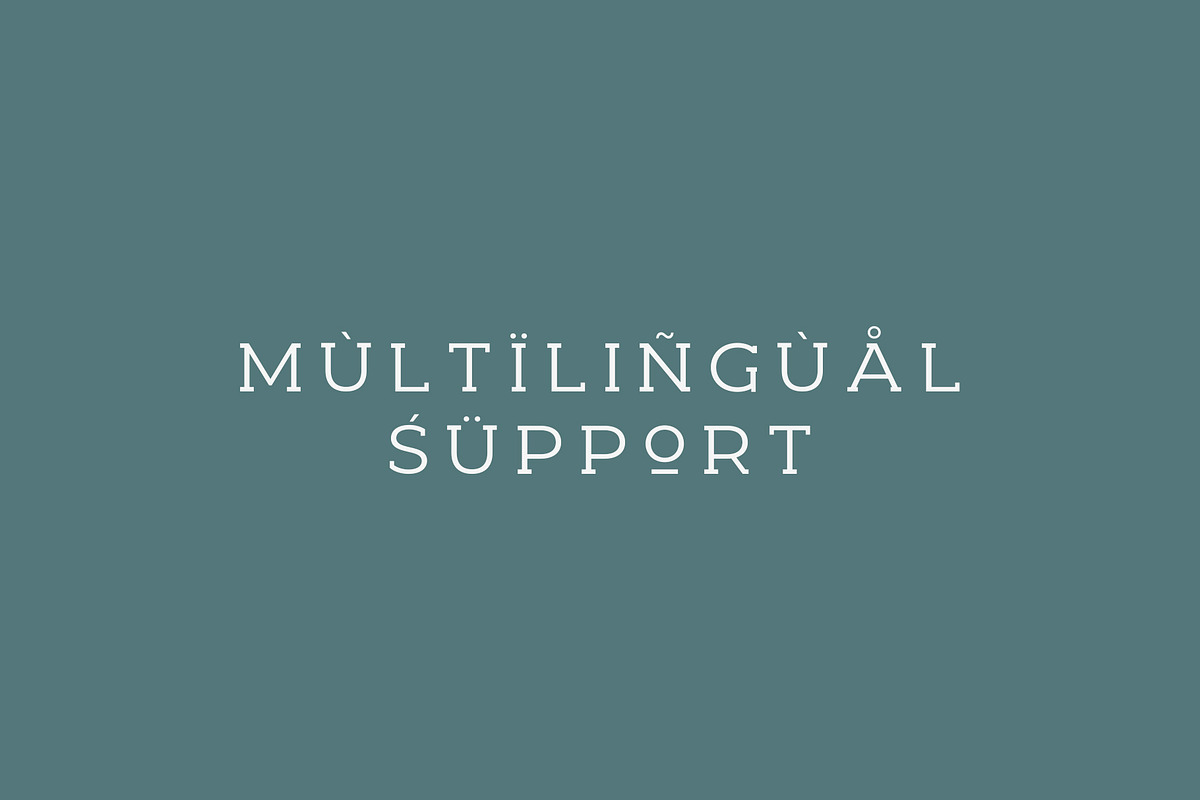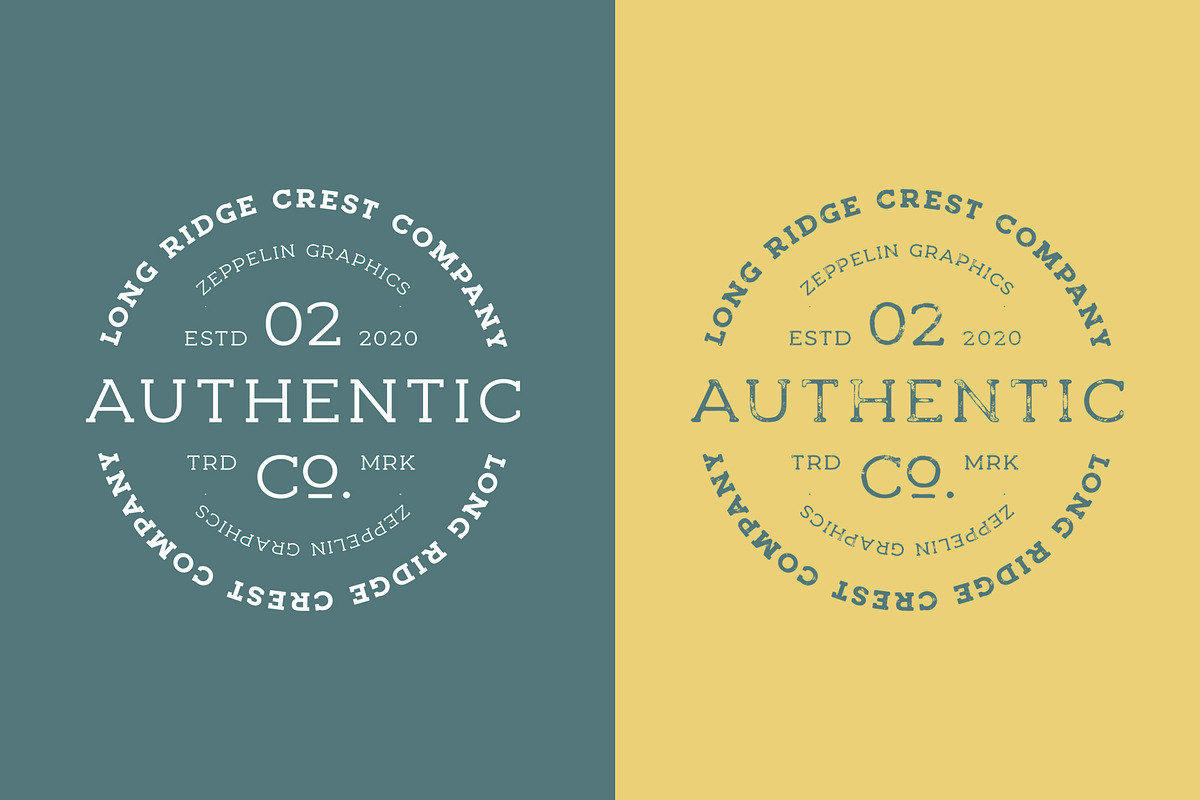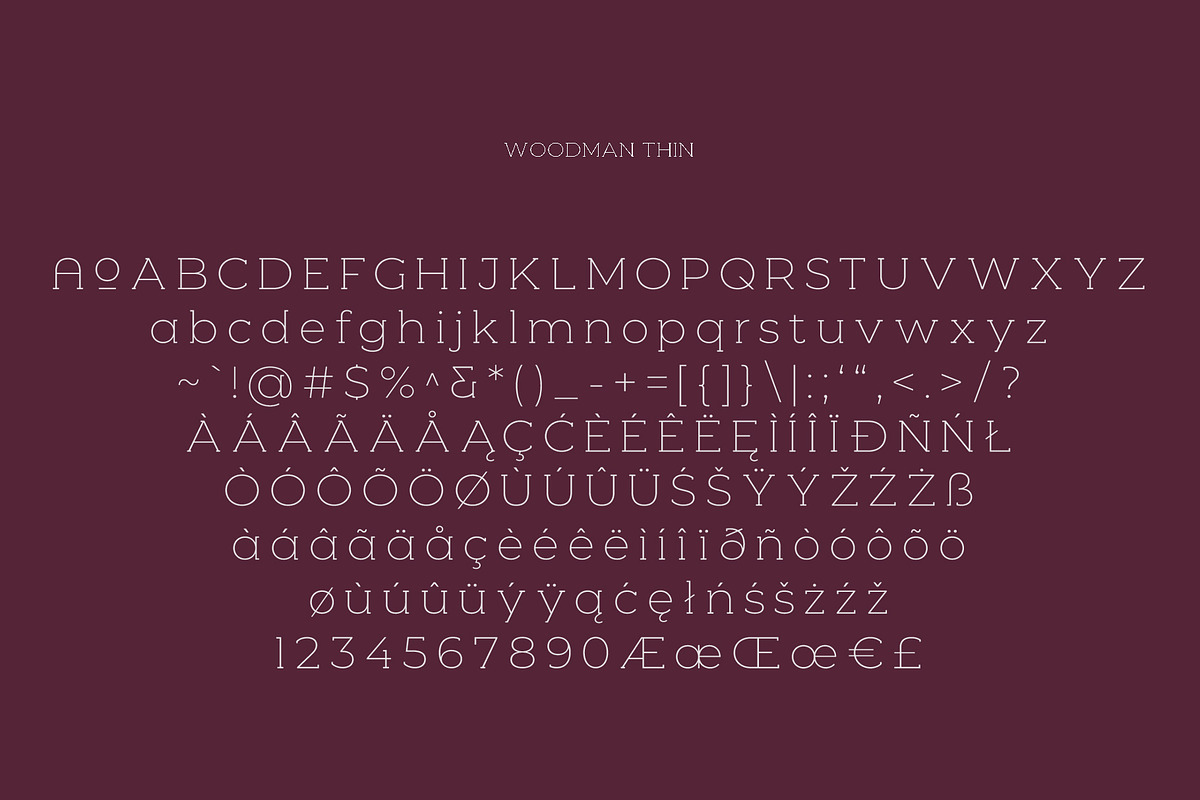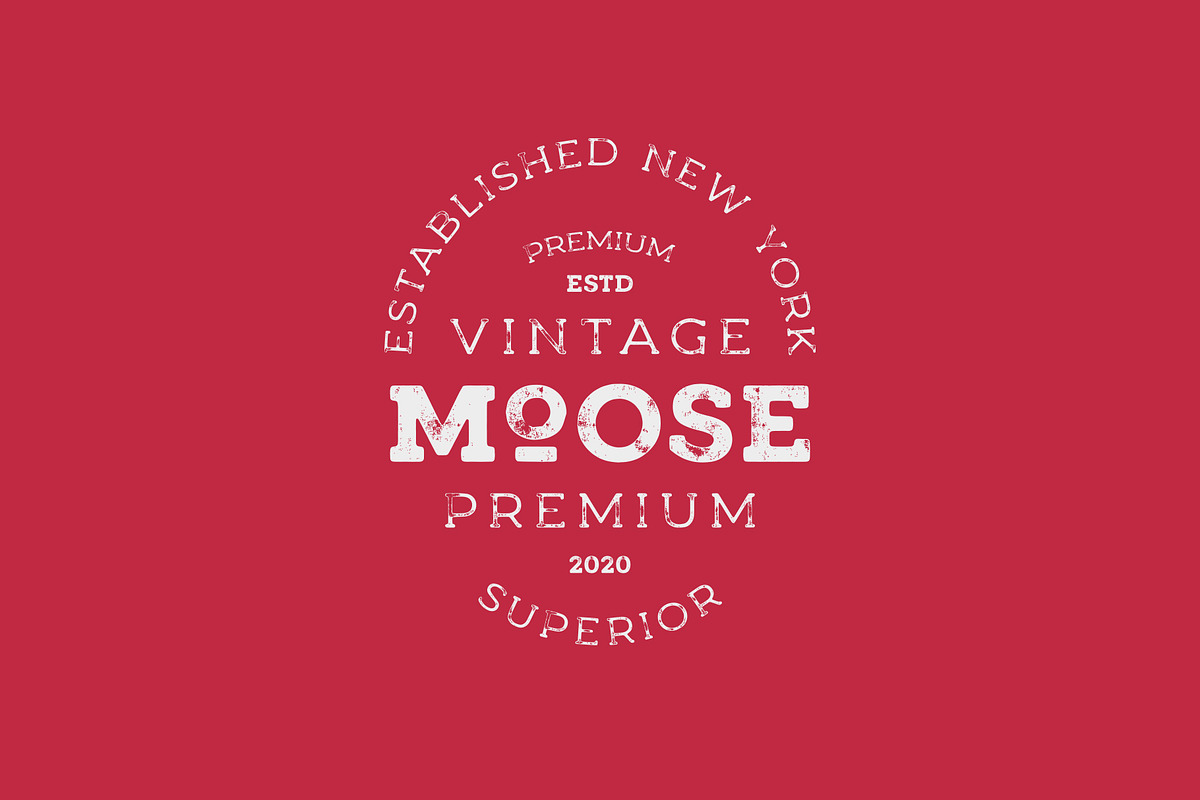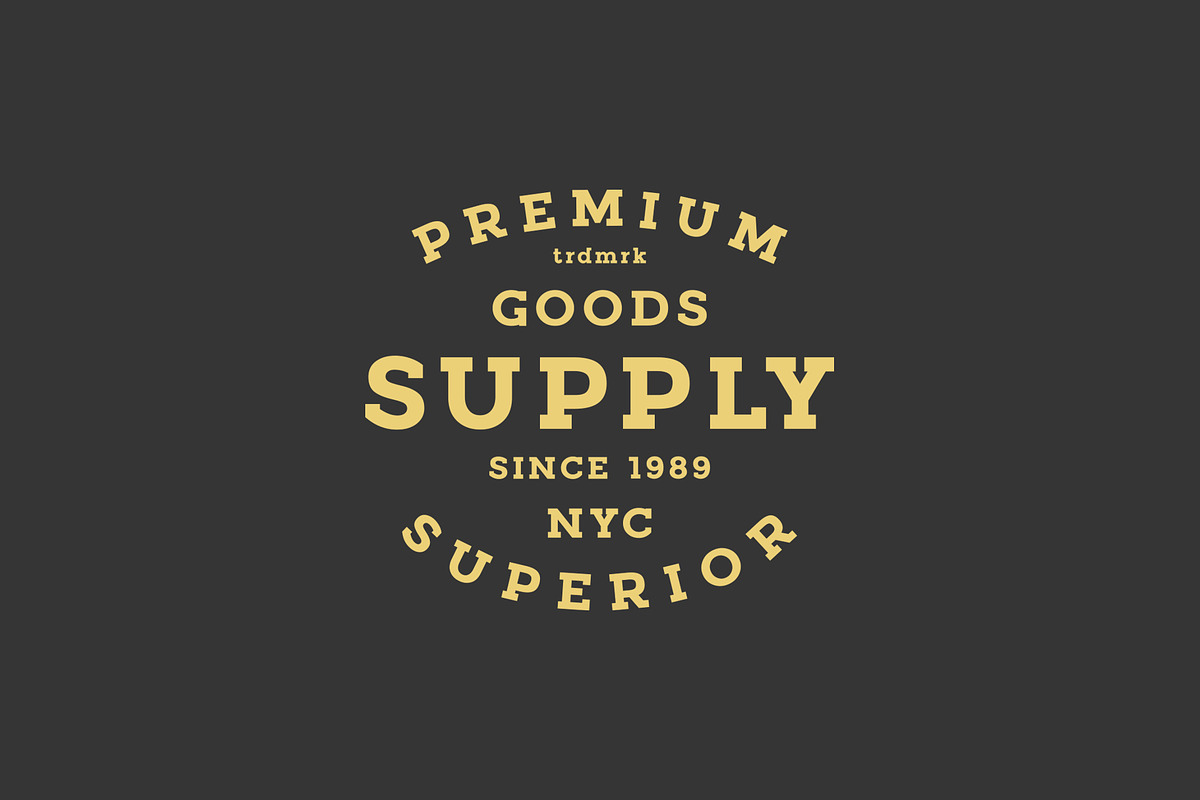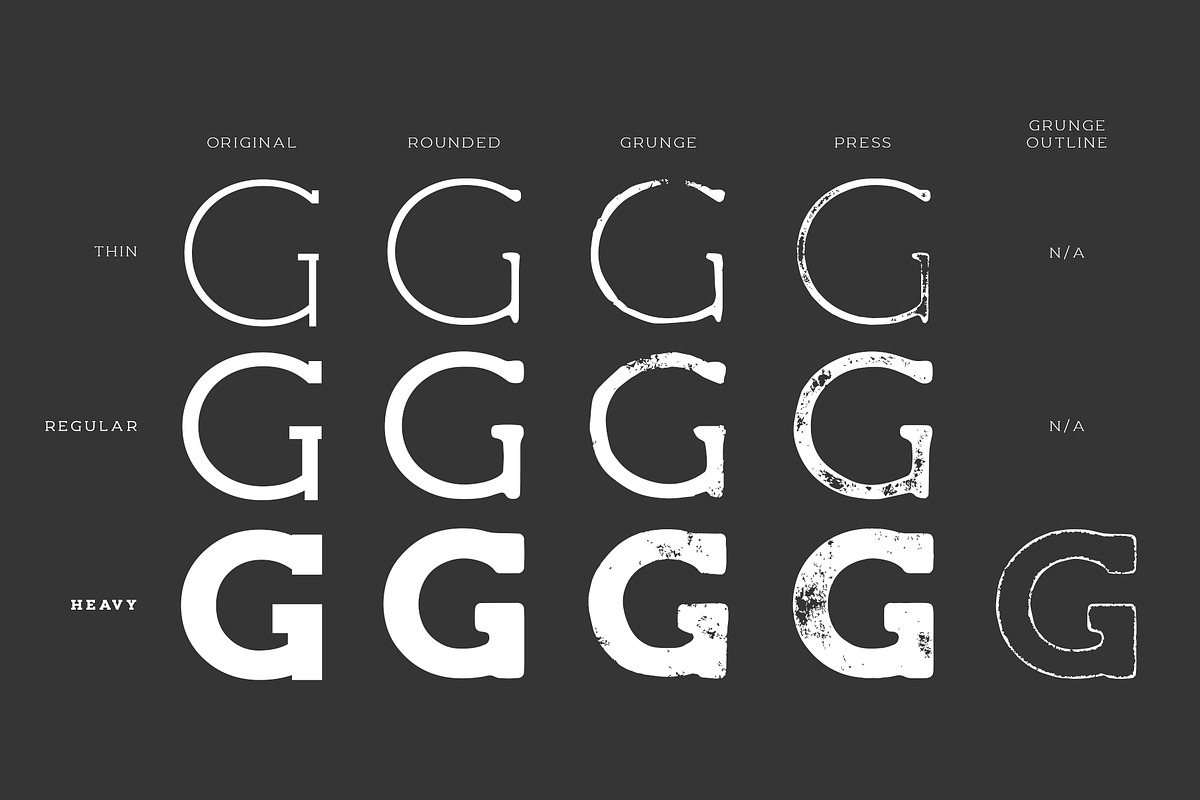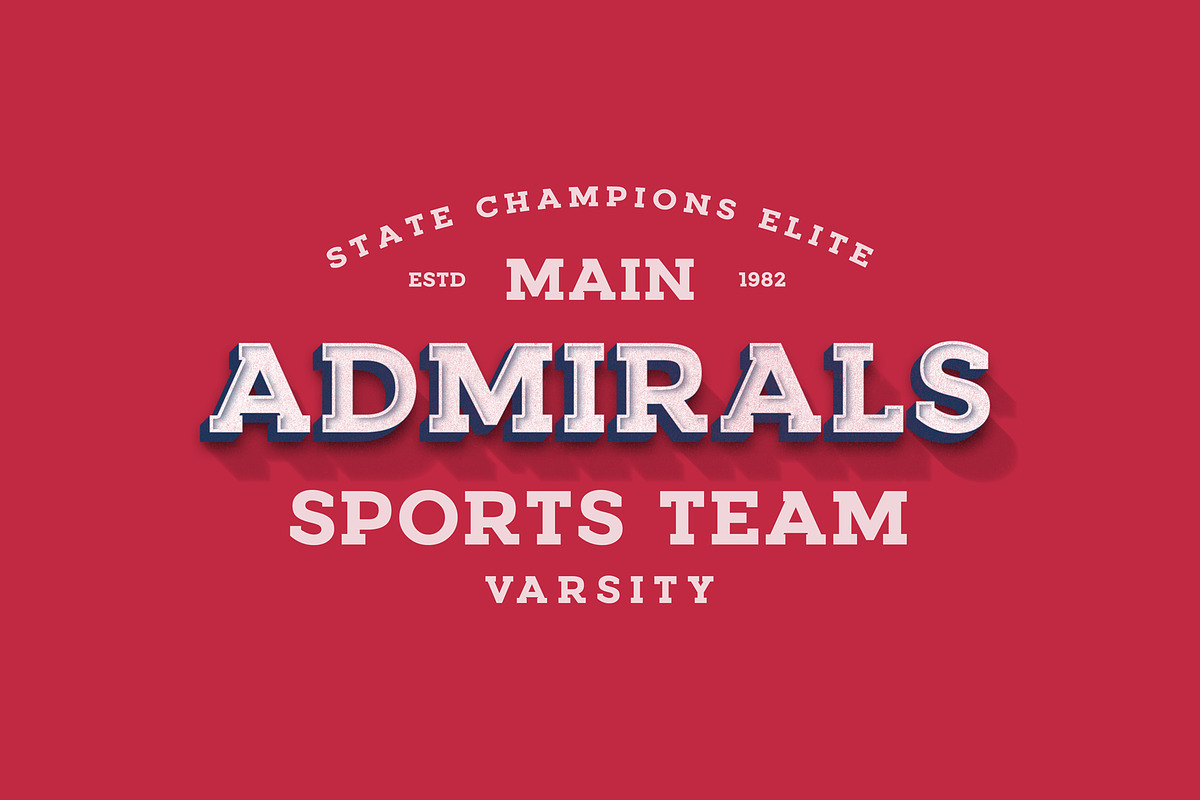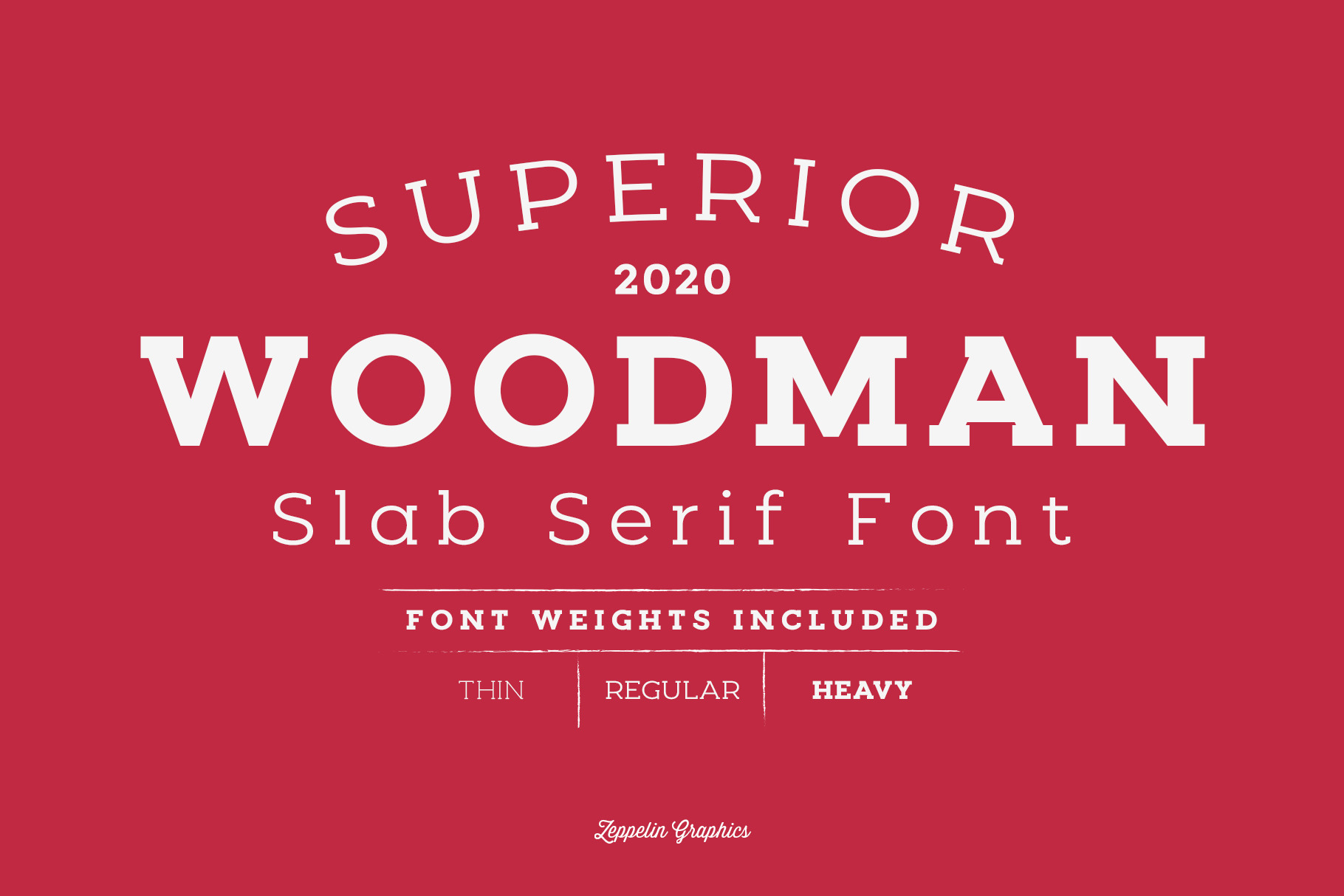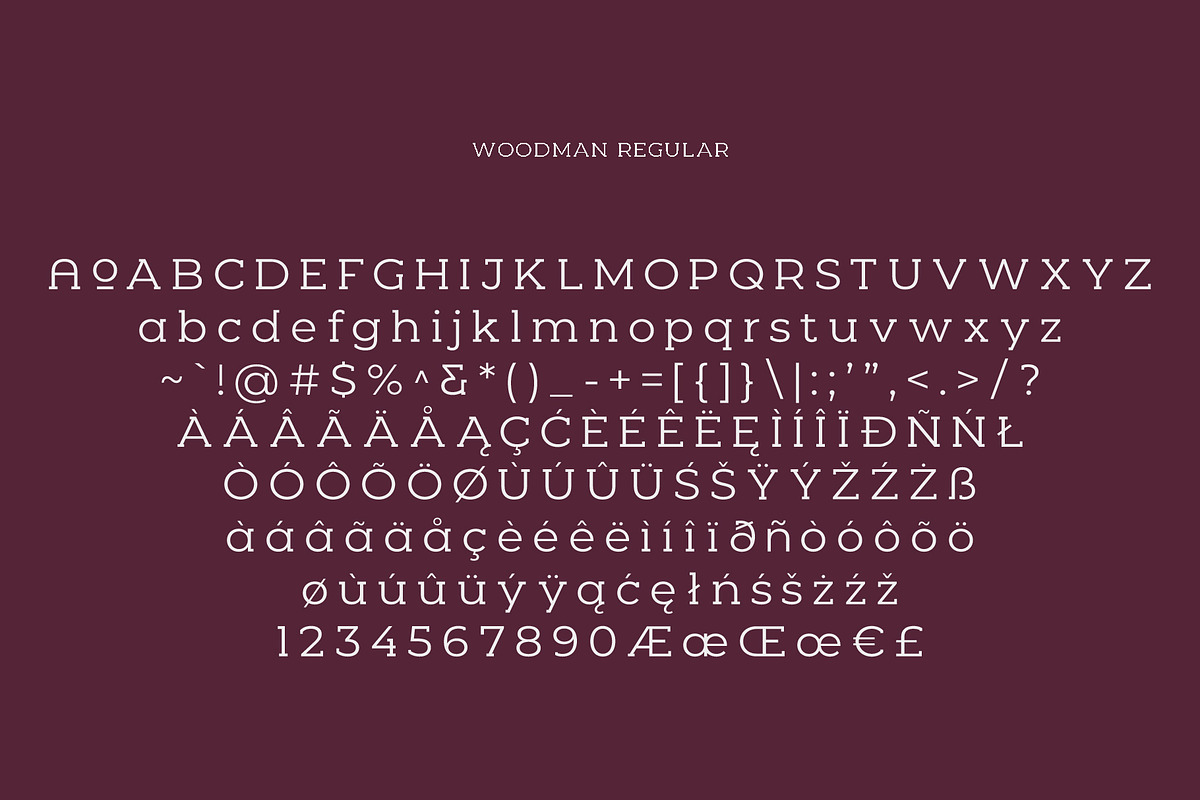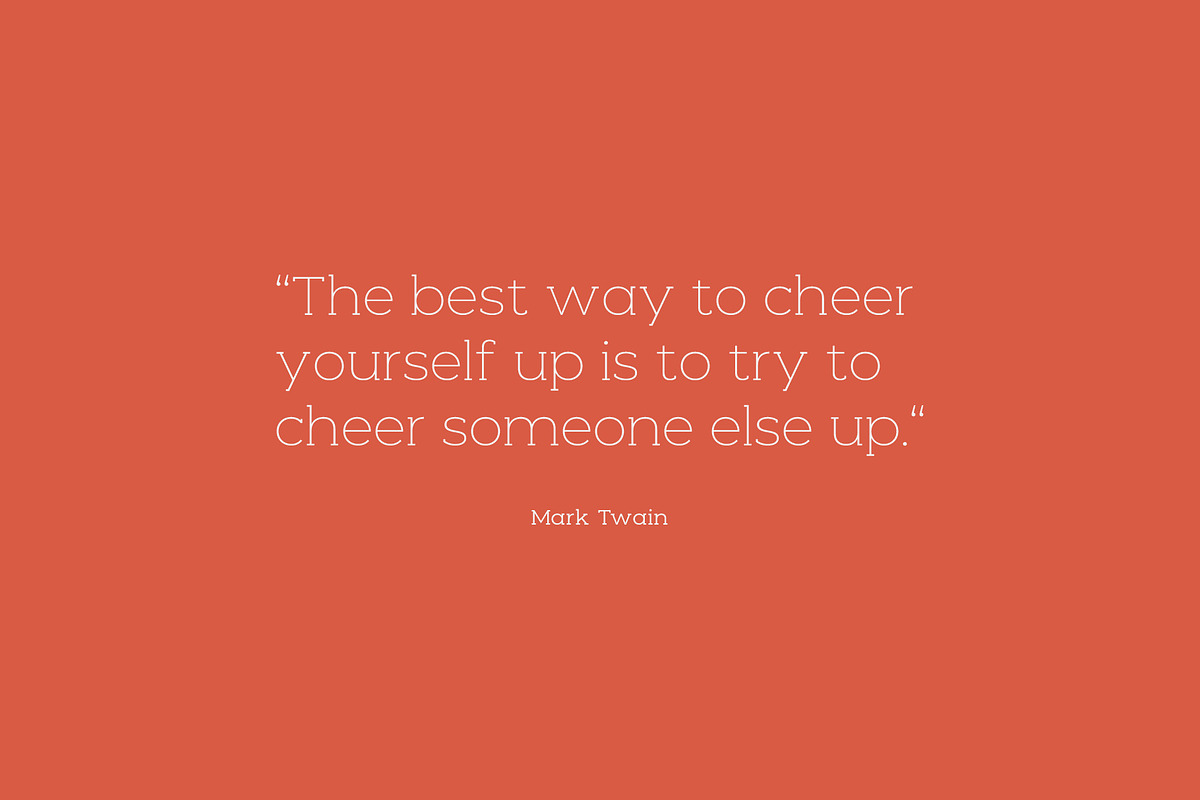
Woodman Slab Serif Font
Woodman features 3 weights, regular, thin and heavy. Each weight has 4 different styles: normal, rounded, press and grunge. The heavy version also has a 5th styles, grunge outline. We hope that you will find this font useful in your projects and have fun with it!
- 3 font weights
- Thin, Regular and Heavy
- Numerals and punctuation
- Alternates and ligatures